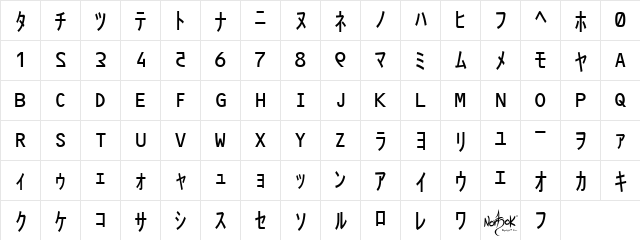
Matrix Code NFI Regular Font Preview
Matrix Code NFI Regular
Matrix Code NFI Regular Font Details
| Foundry | Thomas W. Otto |
| Designer | Thomas W. Otto |
Design Context for Matrix Code NFI Typeface
Matrix Code NFI brings the precise, column-aligned rhythm of monospaced typography to designs that value technical clarity and systematic order.